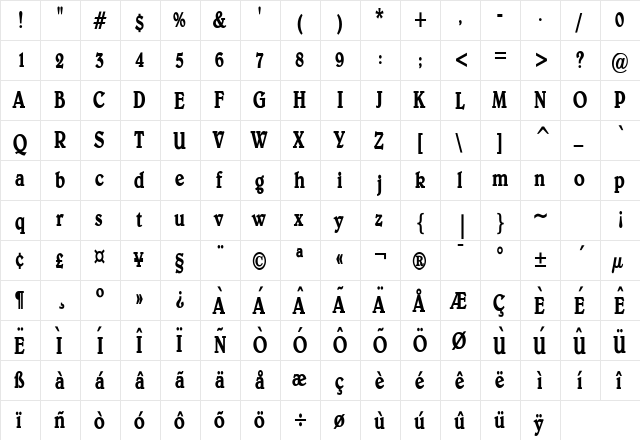
Blew Condensed Bold Font Preview
Design Context for Blew Condensed Typeface
Blew Condensed offers clean, dependable letterforms without strong stylistic allegiance, making it a practical choice for designers who need flexibility. The heavy weight commands attention and anchors typographic hierarchies. The condensed width makes it efficient for tight spaces without sacrificing legibility.
Pro Tip: Pair Blew Condensed with a font of contrasting weight or personality to build a more expressive typographic hierarchy.